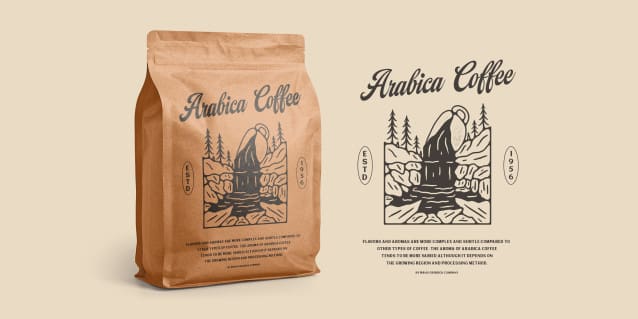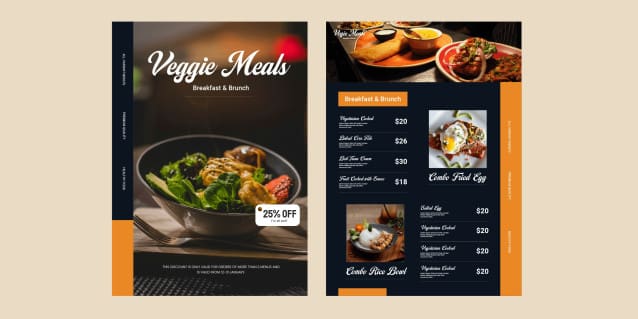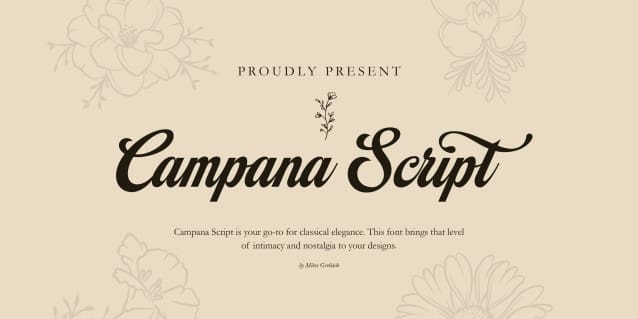
Campana Script Font, is a classical elegance script font. Designed with heavy calligraphic lines and intricate curves, CampanaScript suits formal applications and traditional logotypes.
Use underscore _ to make a swash.
Example: Deco_rative
Use multiple underscores to make different underlines.
Example: Candy__shop